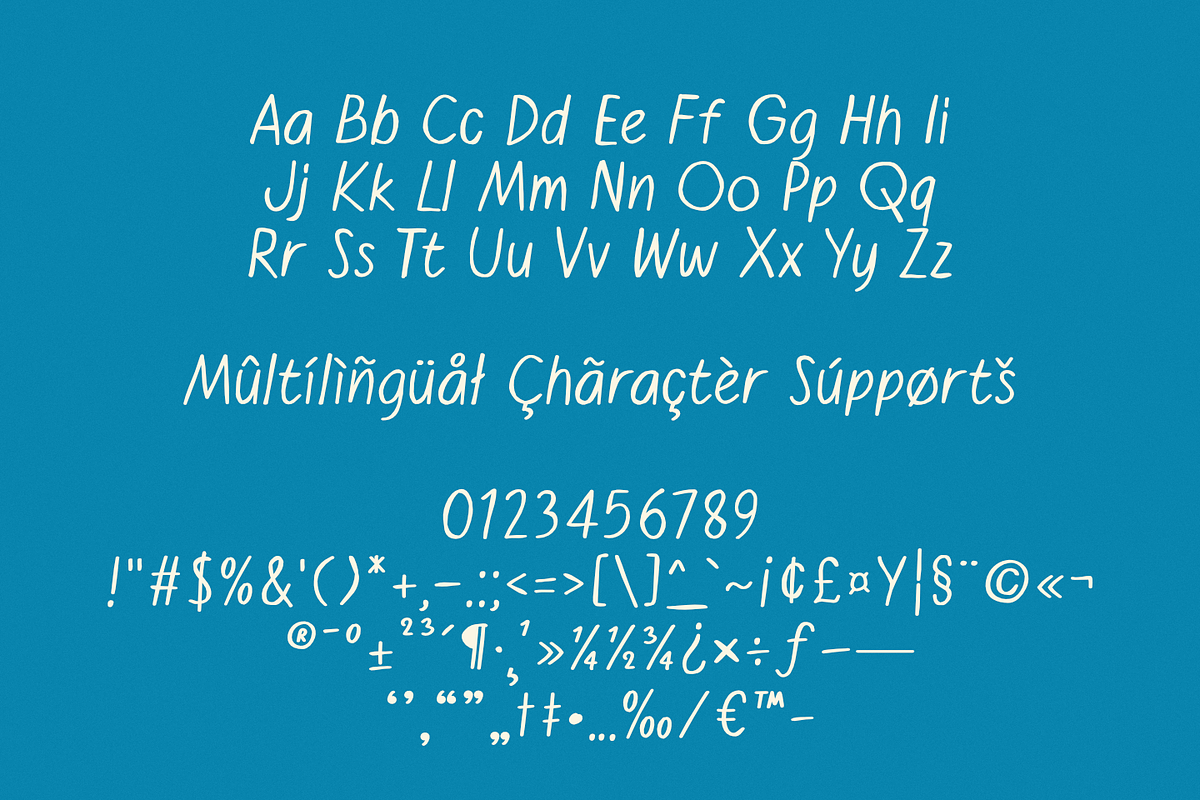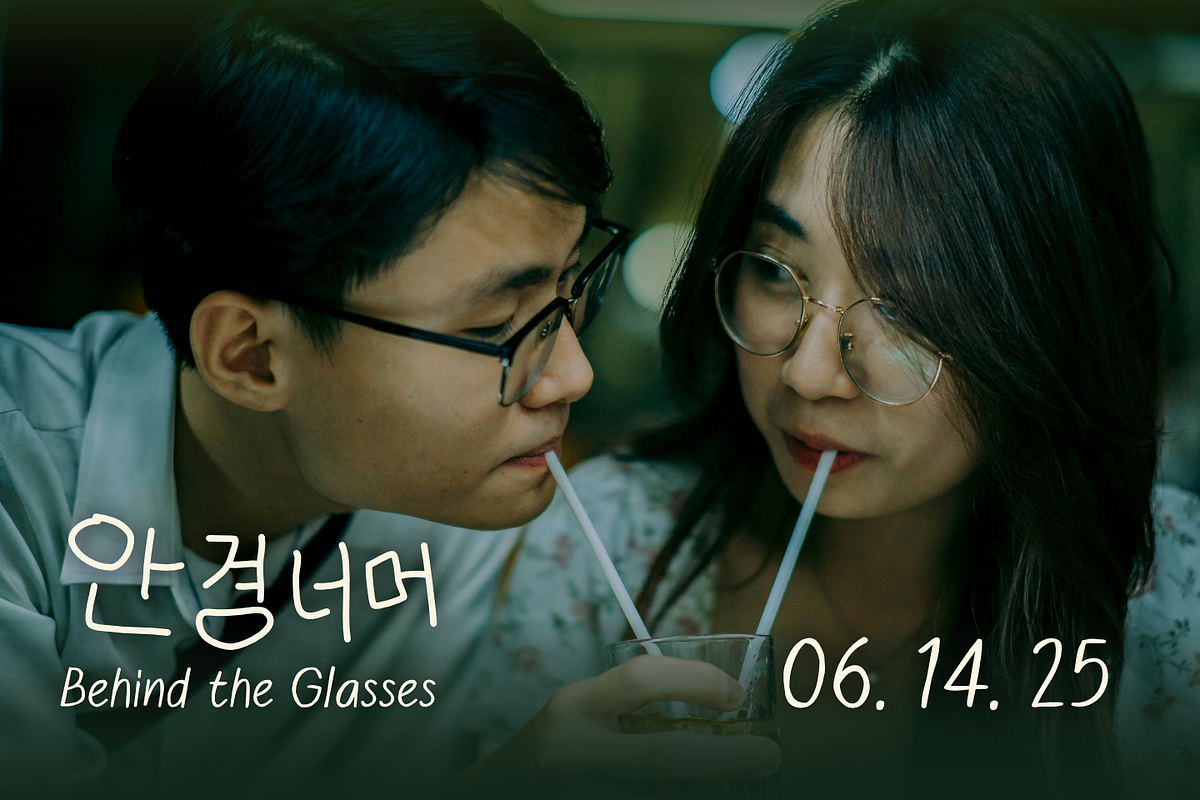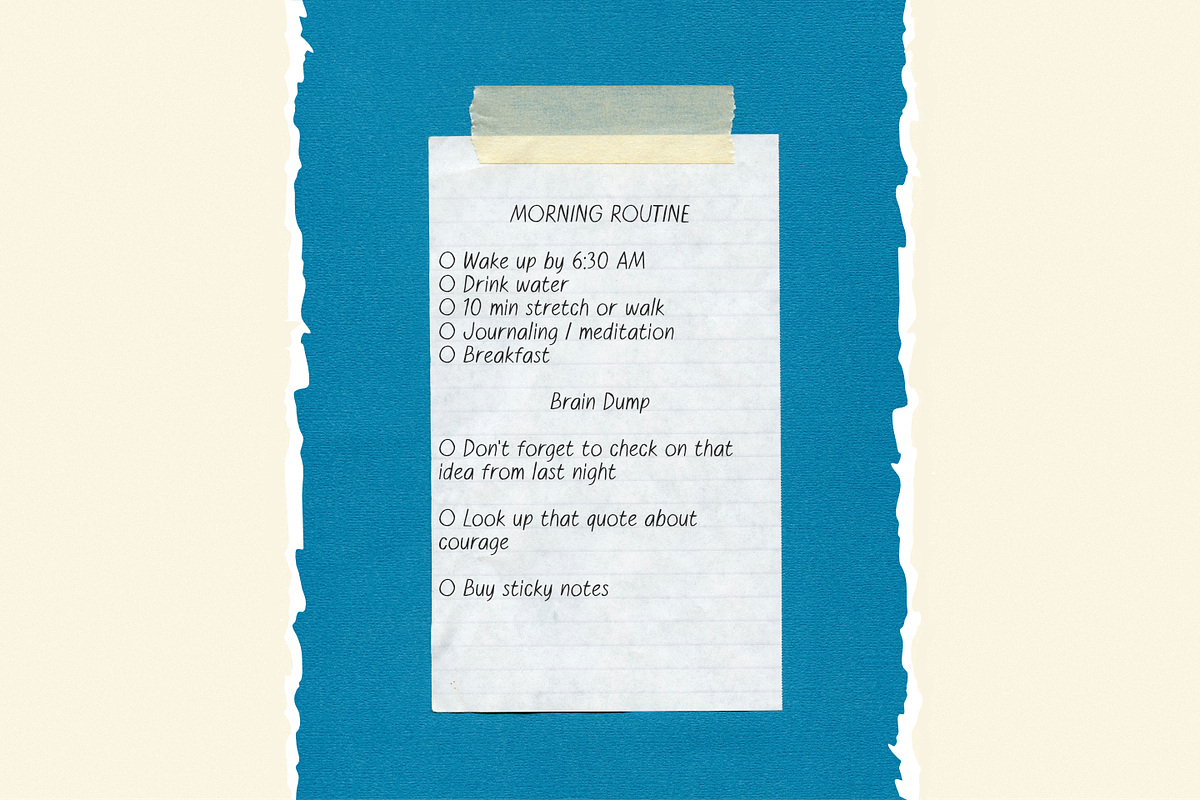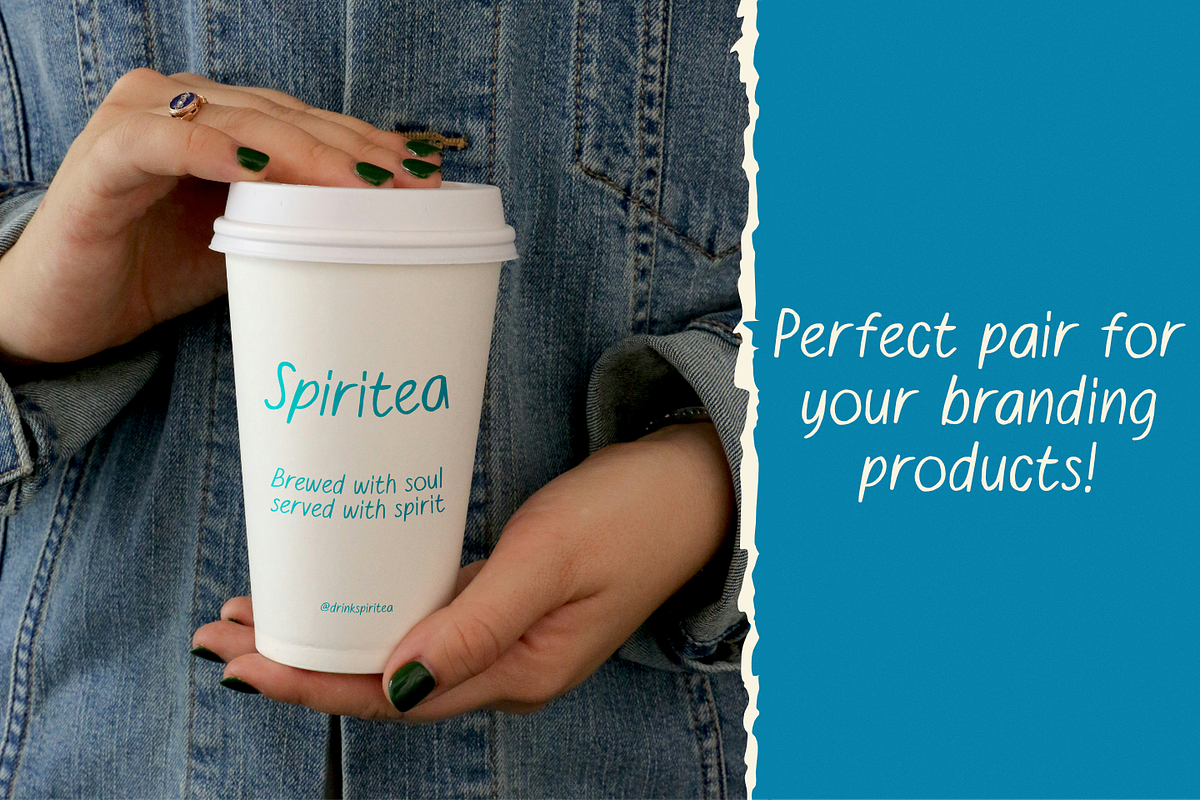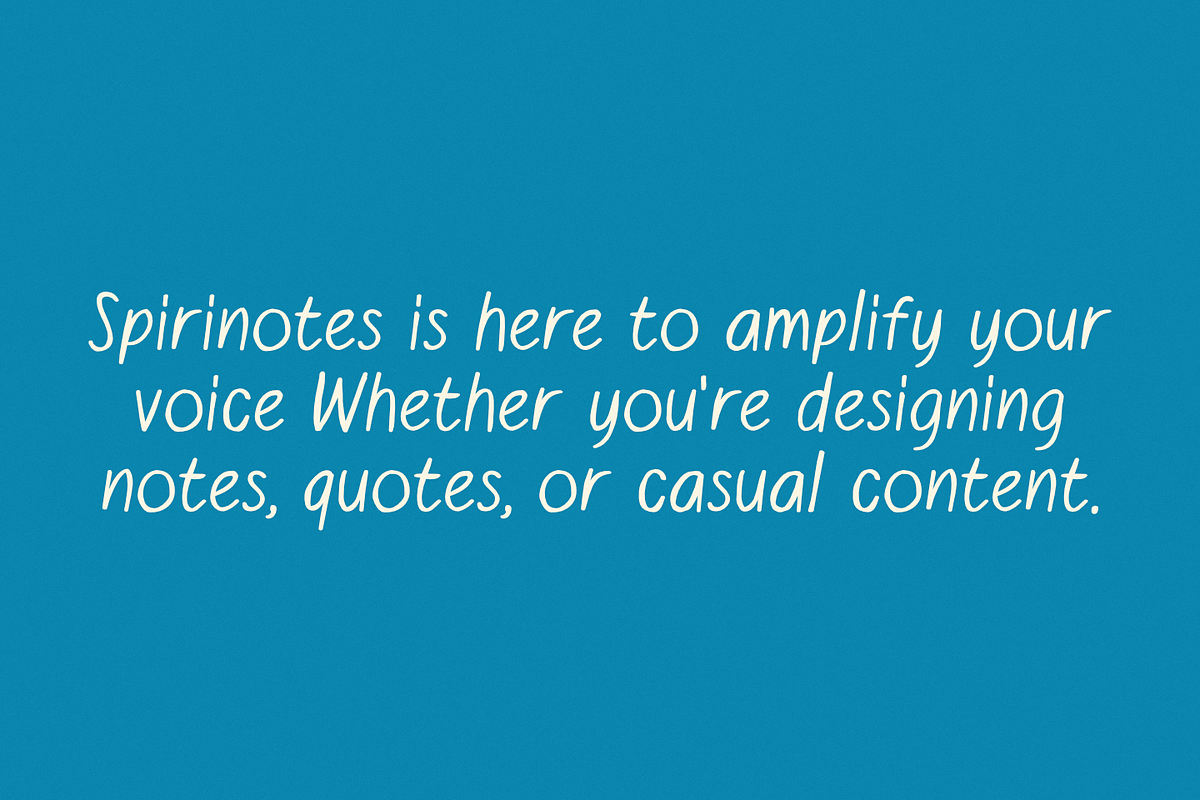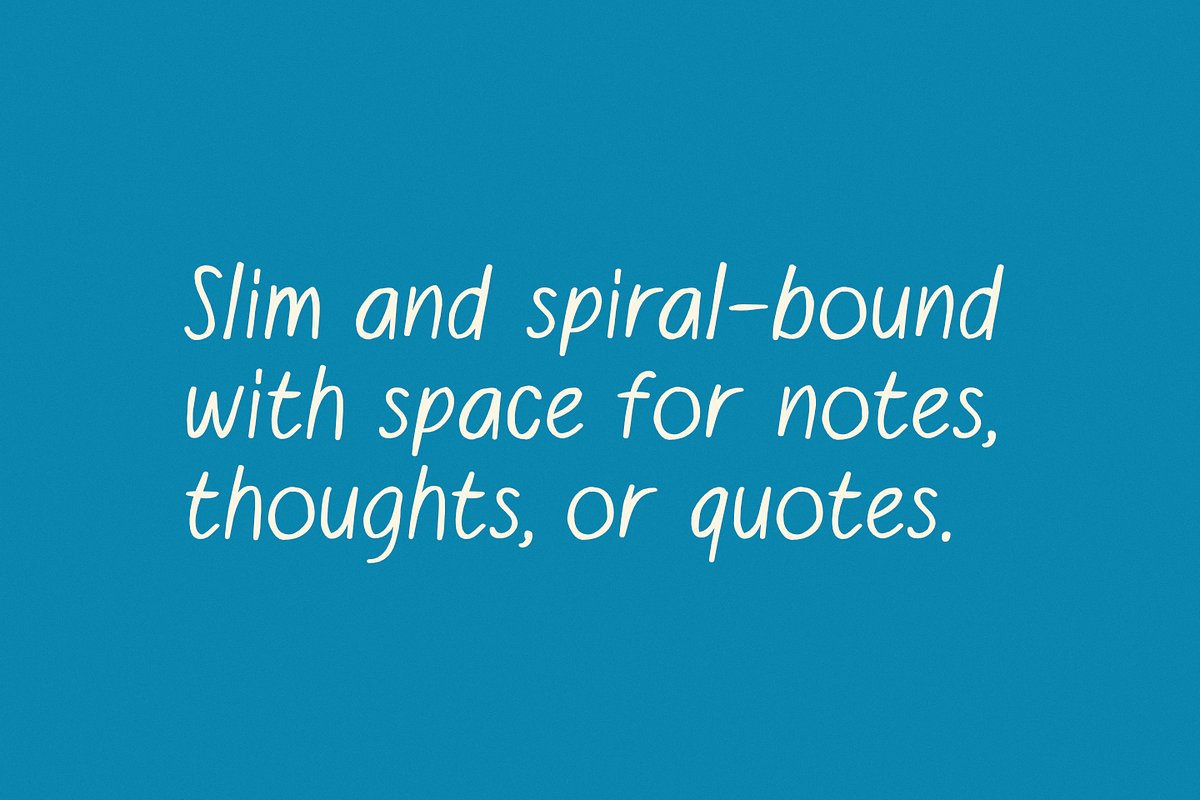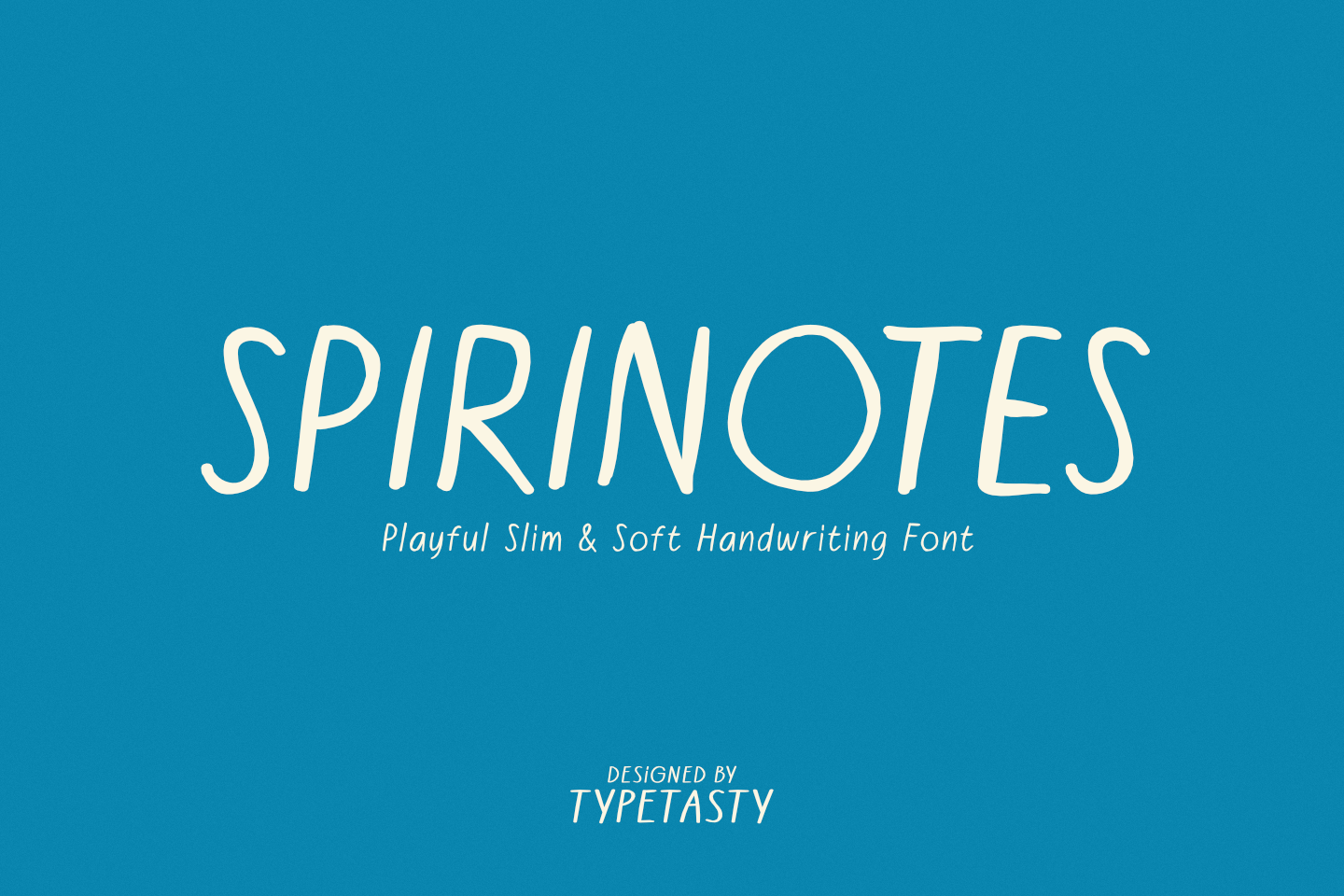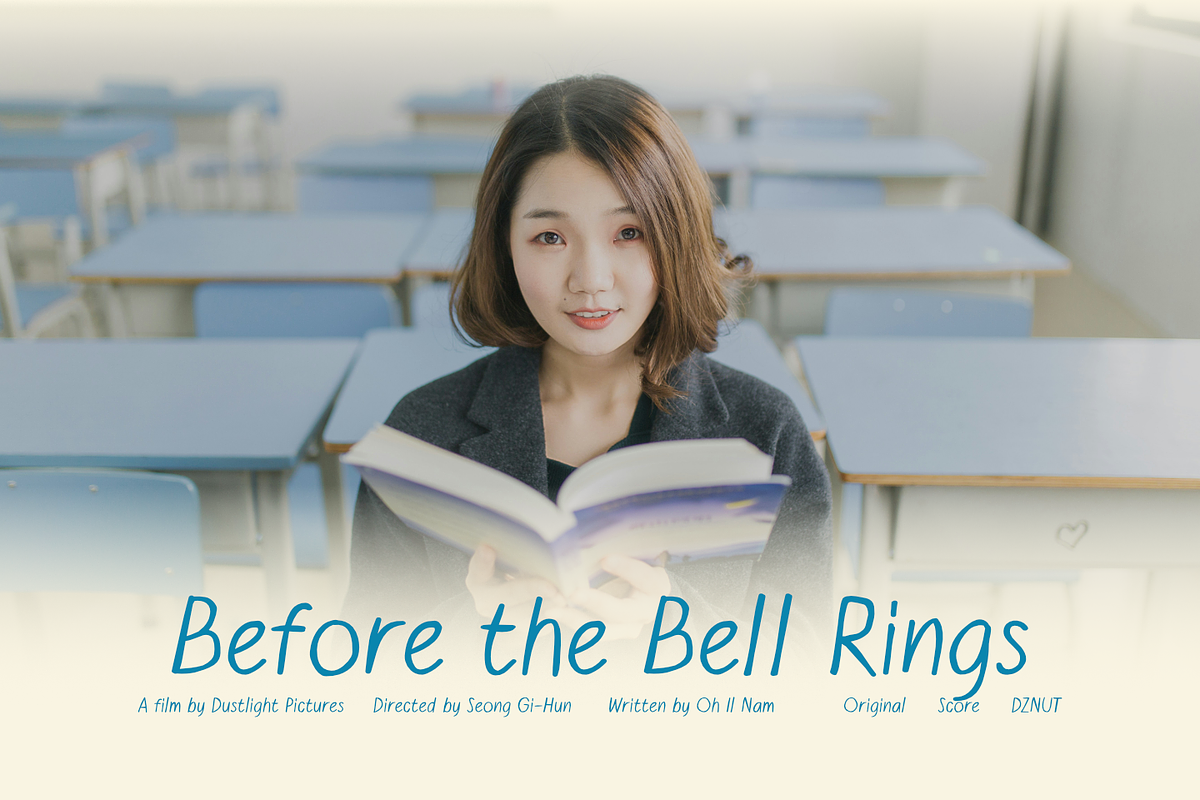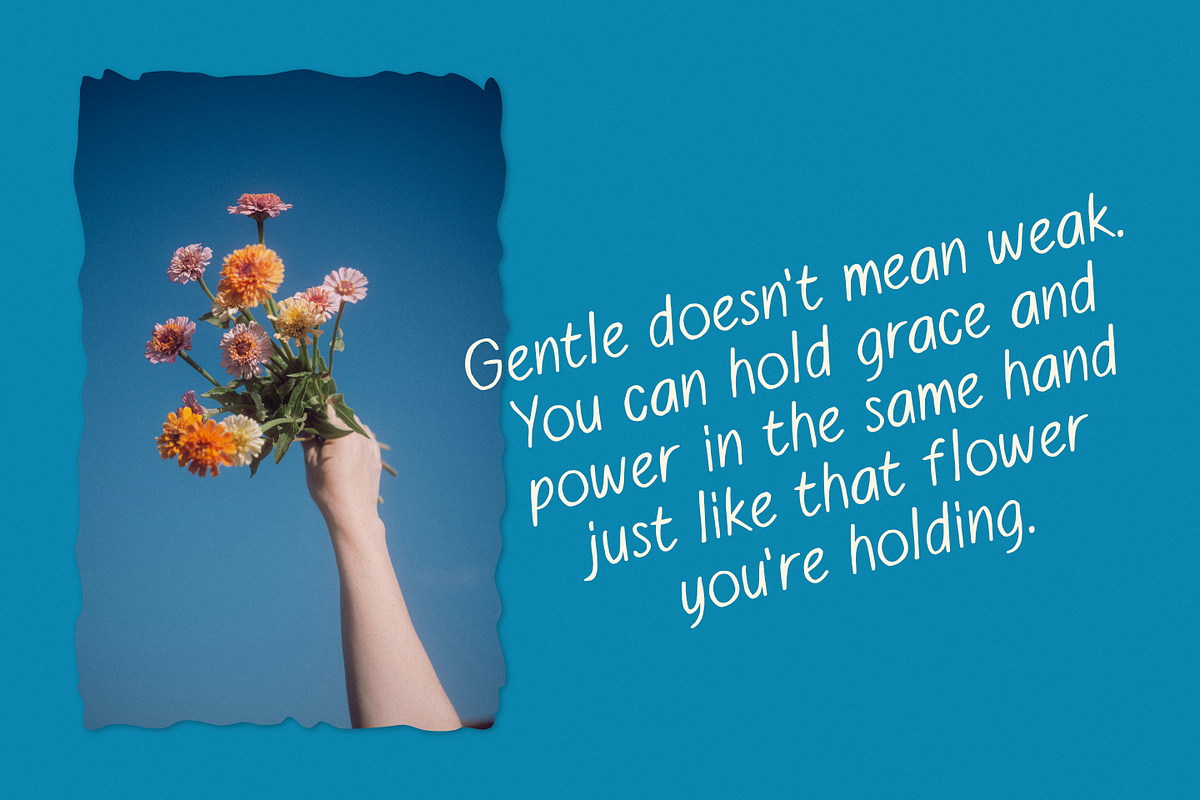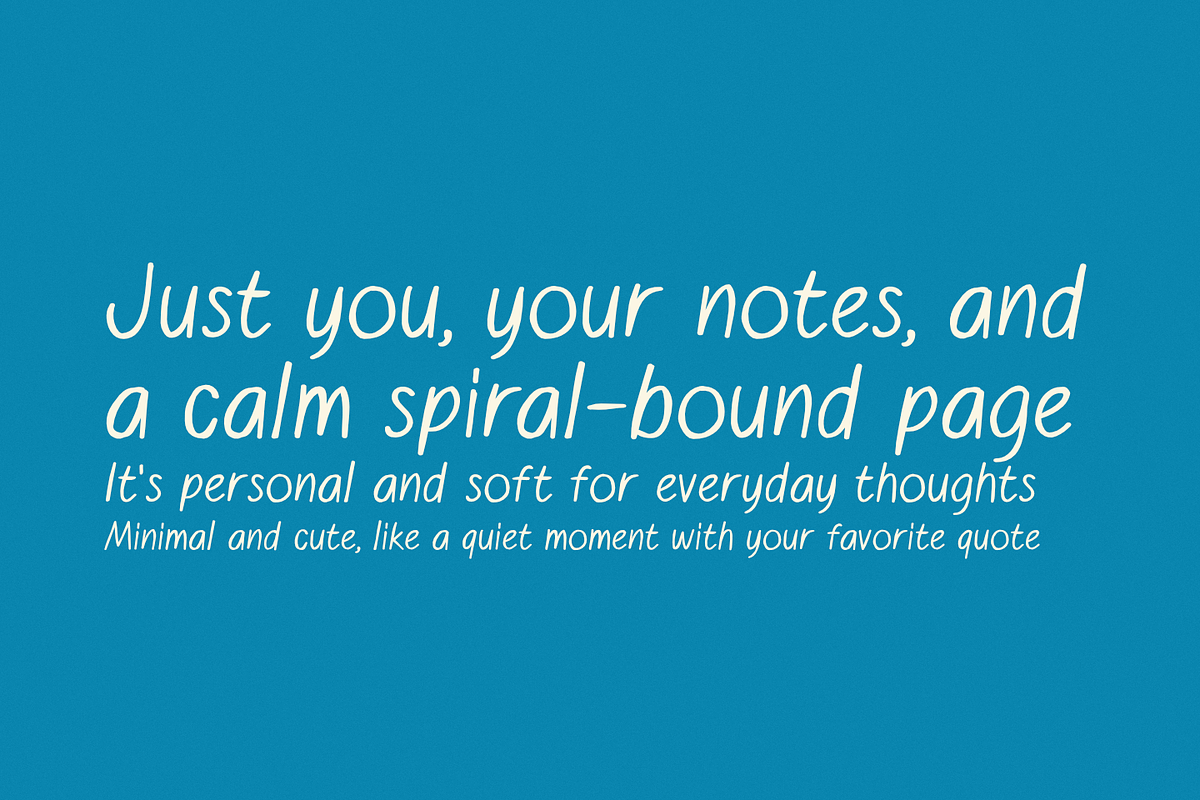
Spirinotes – Slim and Soft Font
Spirinotes is a casual slim handwritten font inspired by notebook scribbles and study aesthetics. It’s perfect for bullet journals, YouTube thumbnails, daily quotes, and cozy digital planners. With its tall and airy letterforms, Spirinotes adds a fun, approachable touch to any design—while staying clean and legible. Ideal for creators looking for soft, minimal handwriting style. Spirinotes is a lightweight and charming handwritten font with a casual twist—perfect for adding a touch of playfulness and authenticity to your design. It mimics the natural rhythm of a handwritten spiral notebook, bringing warmth, clarity, and personality.
Font style & energy: Whimsical, minimalist, youthful, handwritten
Market vibe fit: Journals, study notes, YouTube thumbnails, Pinterest quotes, casual brand designs
Letterform structure: Tall, slim, slightly curved handwritten sans-serif
Best use cases:
- Bullet journals & daily planners
- Study-related social media content
- Educational YouTube or thumbnails
- Stationery, stickers, and doodle books
- Personal blogs, vlogs, and soft brand voice designs
Spirinotes is made for creators who want their designs to speak in a soft voice but still be heard. It’s the go-to font for turning ideas into handwritten stories with clarity and charm.
Effortlessly Legible & Relatable
- Keeps things friendly and easy on the eyes
- Perfect for both quick reads and detailed content
Notebook-Inspired Handwriting
- Gives off cozy journal or school-note vibes
- Adds personality without being overpowering
Modern Casual Aesthetic
- Great for minimalist layouts or informal branding
- Clean enough for body text, quirky enough for headers
Make your ideas feel handwritten and heartfelt. Whether you’re designing notes, quotes, or casual content, Spirinotes is here to amplify your voice. Add this lovely font to your toolkit now—your next creative project deserves it.